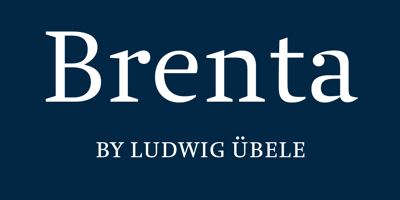
Brenta Font Family was designed by Ludwig Übele and published by Ludwig Type. Brenta contains 24 styles and family package options. Brenta is a crisp typeface with open counters and compact proportions, its name referring to a range of mountains in northern Italy. Like its namesake, Brenta is characterized by sharp-edged and sturdy forms, but also by its clarity and elegance. Strong serifs, flat and bold shoulders and open terminals pronounce the horizontal and help to guide the eye along the line. Very fine junctures keep the characters sharply defined and create dynamic light traps. Visit this minisite to see the Brenta webfonts in action: http://brenta.ludwigtype.de